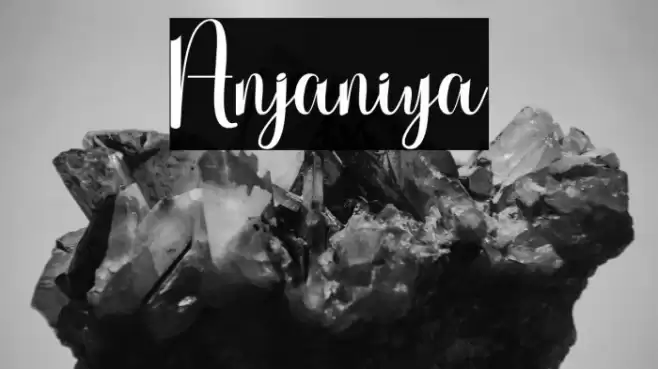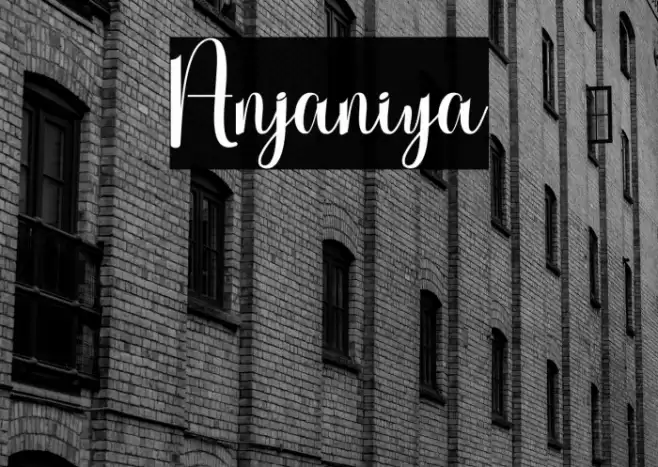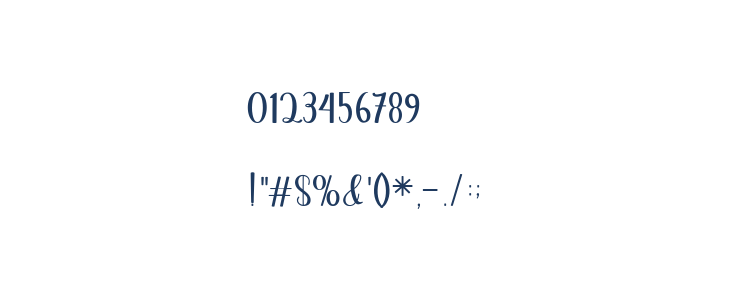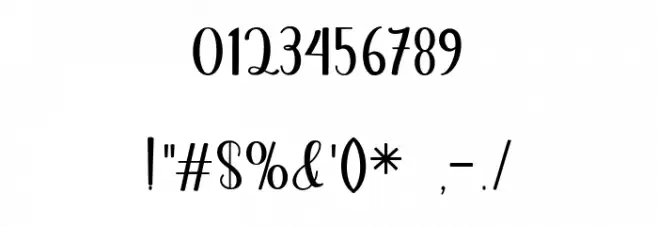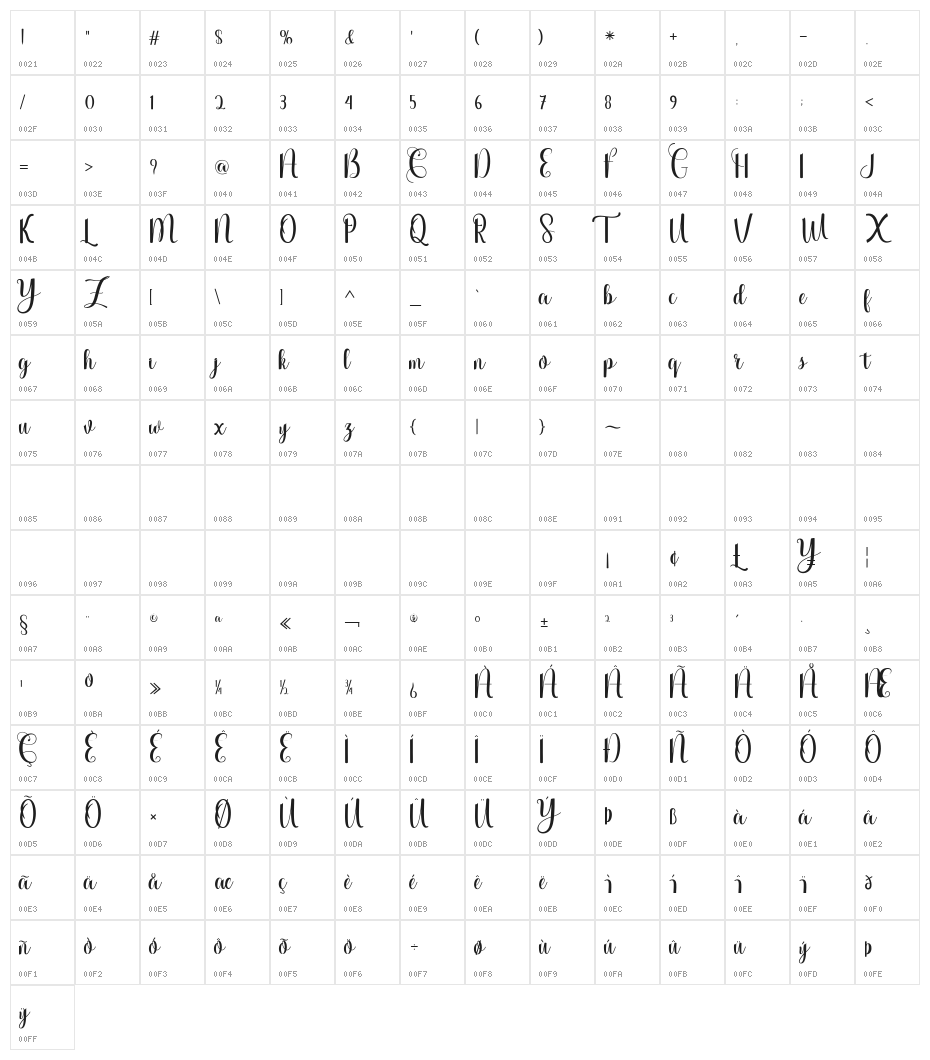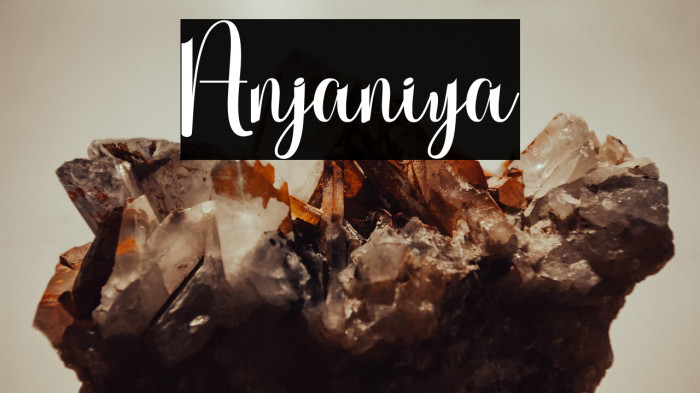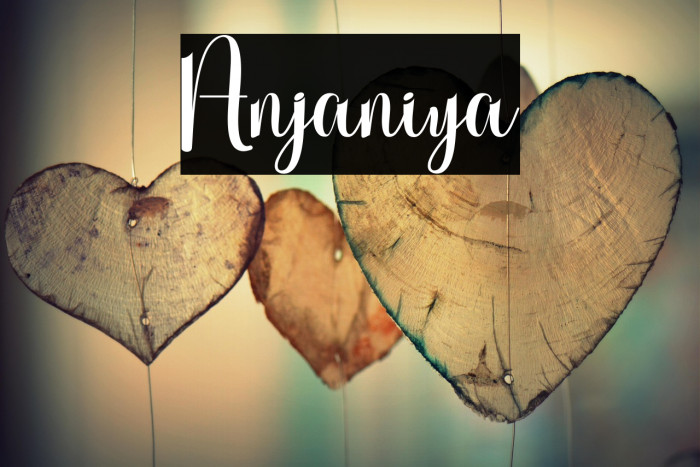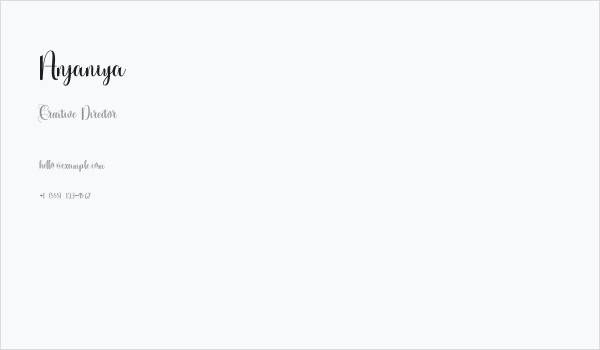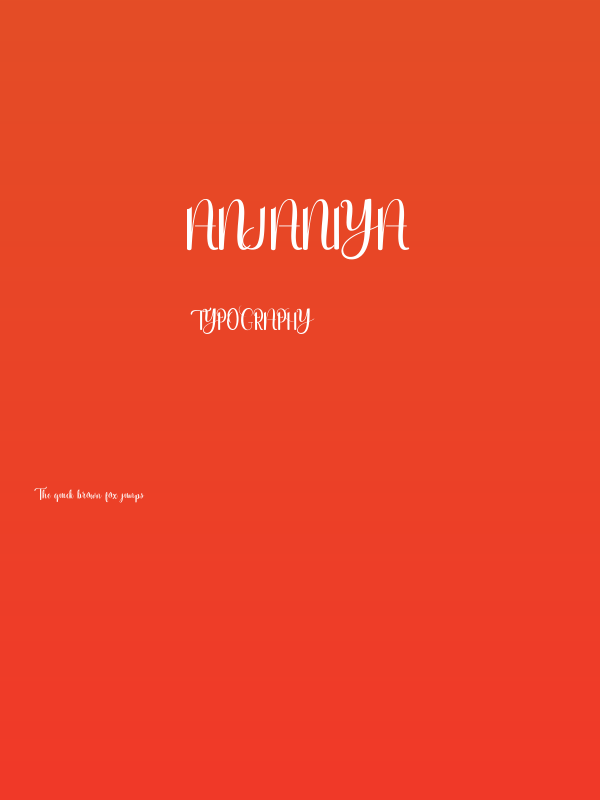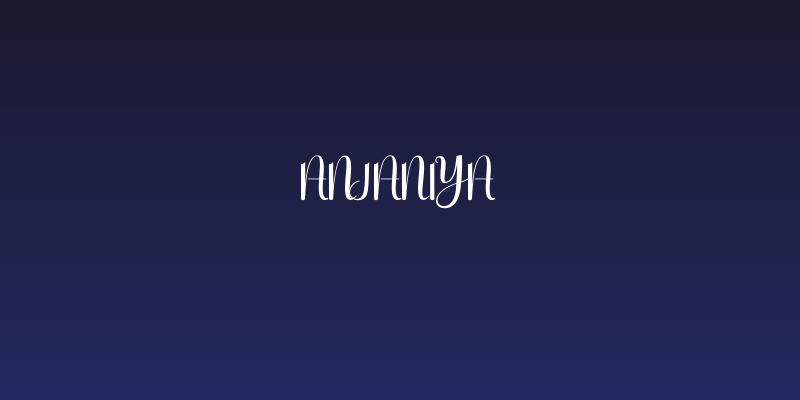
Anjaniya Font
Anjaniya Description
This font features an elegant and flowing script style with a modern twist. The uppercase letters are characterized by their tall, slender forms and intricate loops, giving them a sophisticated and artistic appearance. The lowercase letters maintain a consistent flow, with smooth curves and a slightly playful touch. The numerals are clear and easy to read, while the special characters blend seamlessly with the overall design. This font's unique style makes it stand out, offering a blend of elegance and creativity.
A modern, elegant script font with intricate loops and smooth curves from Regular fonts.
- Font: Anjaniya
- Proposed Projects: Ideal for wedding invitations, branding, logo design, and elegant packaging.
- Use Case: Logos, Invitations, Branding